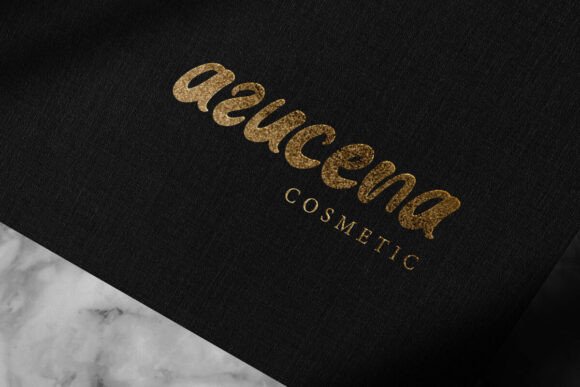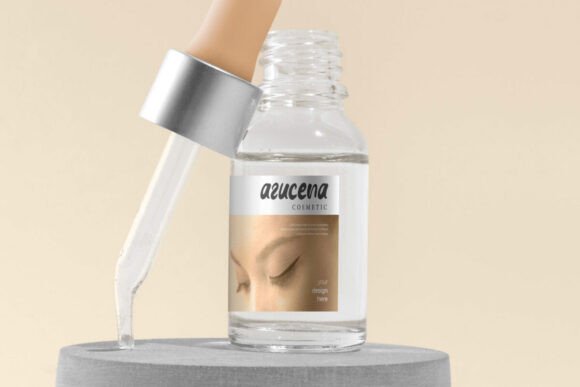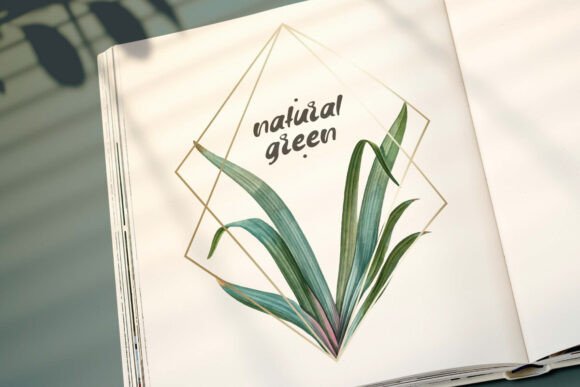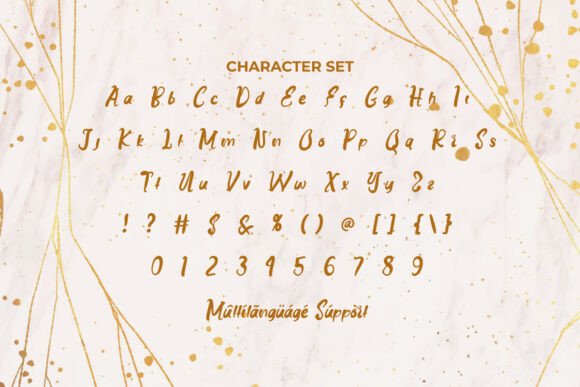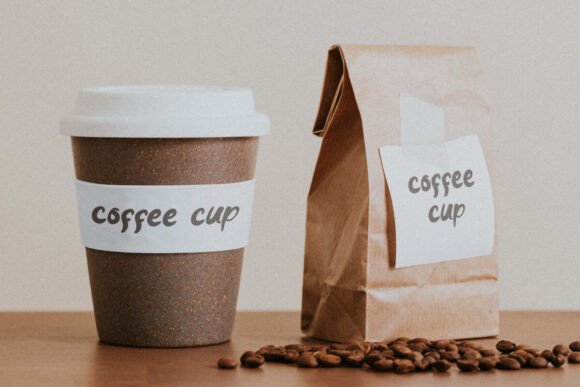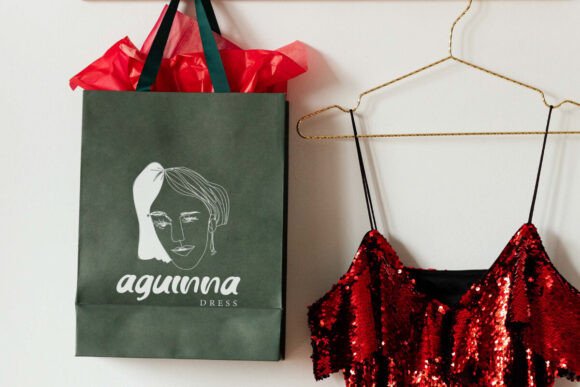
Introducing Gold Widow Font: Elevate Your Designs with Bold, Beautiful Handwritten Style
Are you tired of using the same old fonts in your designs? Do you want to add a touch of elegance and sophistication to your visual projects? Look no further than Gold Widow Font, a stunning handwritten font that is sure to take your designs to the next level. With its bold, messy letters and beautiful aesthetic, Gold Widow Font is the perfect choice for designers and crafters looking to add some sparkle to their work.
What is Gold Widow Font?
Gold Widow Font is a strong, beautiful handwritten font that is capable of turning inspiring words into beautiful visual pieces. Its bold, messy letters are carefully crafted to add a touch of elegance and sophistication to any design. Whether you’re working on a logo, billboard, or social media post, Gold Widow Font is the perfect choice for adding a touch of glamour and style.
What Makes Gold Widow Font So Special?
So, what sets Gold Widow Font apart from other fonts on the market? Here are just a few things that make it so special:
- Bold and Beautiful: Gold Widow Font features bold, messy letters that are sure to grab attention. Its beautiful aesthetic is perfect for adding a touch of elegance and sophistication to any design.
- Versatile: Gold Widow Font is incredibly versatile, making it perfect for use in a wide range of designs, from apps and billboards to blogs and branding.
- Easy to Read: Despite its bold and messy aesthetic, Gold Widow Font is surprisingly easy to read, making it perfect for use in designs where readability is key.
How Can I Use Gold Widow Font?
Gold Widow Font is perfect for use in a wide range of designs, including:
- Apps: Add a touch of elegance and sophistication to your app designs with Gold Widow Font.
- Billboards: Make your billboards stand out from the crowd with Gold Widow Font’s bold, eye-catching aesthetic.
- Blogs: Add a touch of personality and style to your blog designs with Gold Widow Font.
- Branding: Use Gold Widow Font to create stunning brand identities that are sure to leave a lasting impression.
- Covers: Add a touch of glamour and style to your book covers, magazine covers, and more with Gold Widow Font.
- Headers: Use Gold Widow Font to create stunning headers that are sure to grab attention.
- Logos: Create stunning logos that are sure to represent your brand with Gold Widow Font.
- Mockup Designs: Add a touch of realism and style to your mockup designs with Gold Widow Font.
- Packaging Designs: Make your packaging designs stand out from the crowd with Gold Widow Font’s bold, eye-catching aesthetic.
- Posters: Create stunning posters that are sure to grab attention with Gold Widow Font.
- Product Labels: Add a touch of elegance and sophistication to your product labels with Gold Widow Font.
- Quote Frames: Use Gold Widow Font to create stunning quote frames that are sure to inspire and motivate.
- Screen Prints: Add a touch of style and personality to your screen prints with Gold Widow Font.
- Signs: Create stunning signs that are sure to grab attention with Gold Widow Font.
- Stationery: Add a touch of elegance and sophistication to your stationery designs with Gold Widow Font.
- Stickers: Use Gold Widow Font to create stunning stickers that are sure to grab attention.
- Title: Add a touch of glamour and style to your title designs with Gold Widow Font.
- Websites: Use Gold Widow Font to create stunning website headers, titles, and more.
- Word Marks: Create stunning word marks that are sure to represent your brand with Gold Widow Font.
Why Should I Choose Gold Widow Font?
So, why should you choose Gold Widow Font for your next design project? Here are just a few reasons:
- Unique Aesthetic: Gold Widow Font features a unique, bold aesthetic that is sure to set your designs apart from the crowd.
- High-Quality: Gold Widow Font is a high-quality font that is designed to deliver exceptional results.
- Easy to Use: Gold Widow Font is incredibly easy to use, making it perfect for designers of all skill levels.
In conclusion, Gold Widow Font is a stunning handwritten font that is sure to elevate your designs to the next level. With its bold, messy letters and beautiful aesthetic, it’s the perfect choice for designers and crafters looking to add some sparkle to their work. Whether you’re working on a logo, billboard, or social media post, Gold Widow Font is the perfect choice for adding a touch of elegance and sophistication. So why wait? Download Gold Widow Font today and start creating stunning designs that are sure to leave a lasting impression!